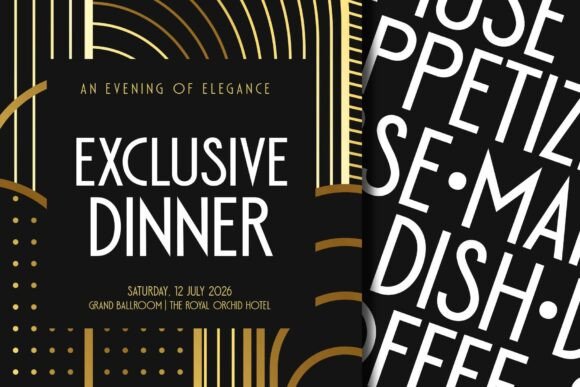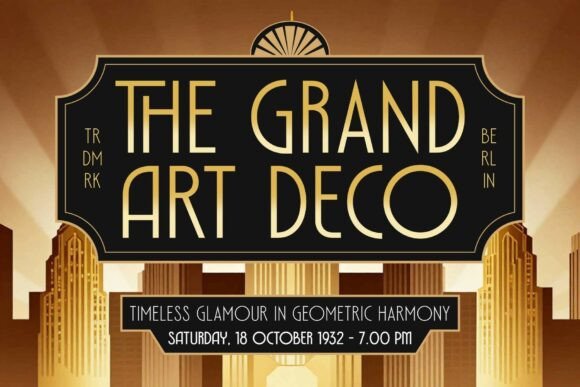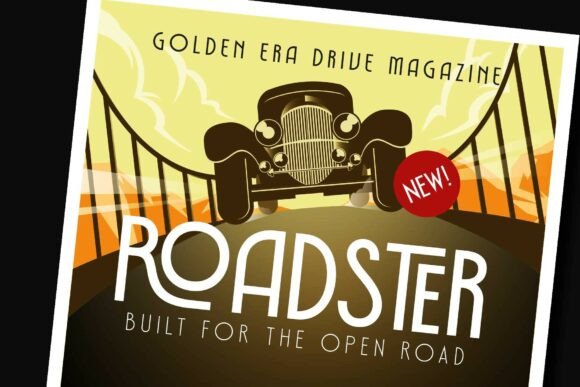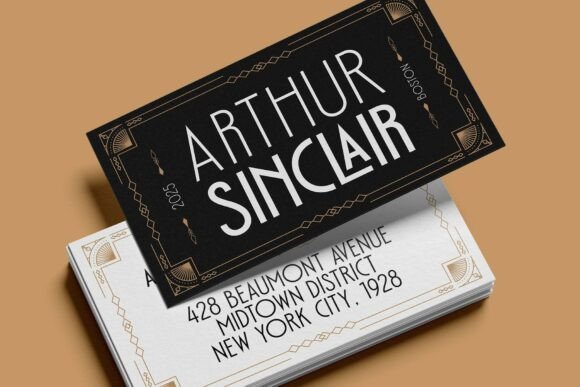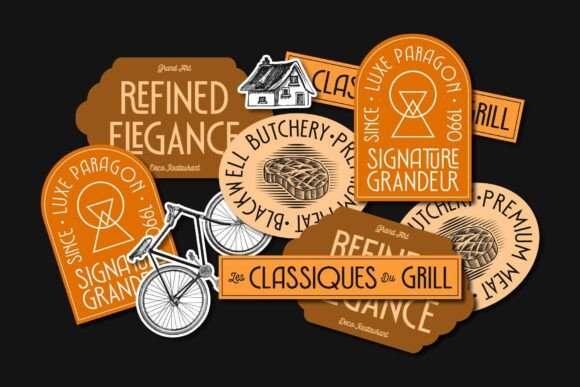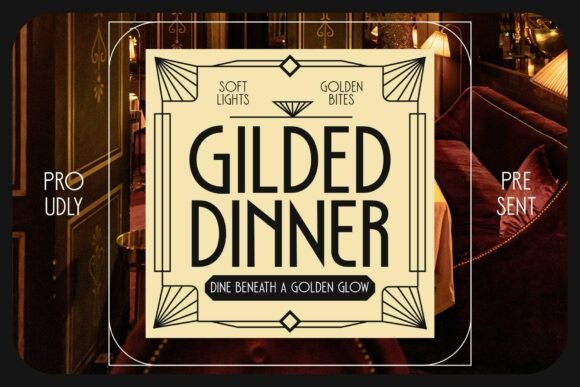
Introduction to Emoritz Font
Emoritz is a display font, inspired by the Art Deco style from the 1920s.
Emoritz visualizes luxurious looks, elegance, and wealth This font is an all-caps font designed with geometric shapes and firm strokes that gives a clear look and minimalist.